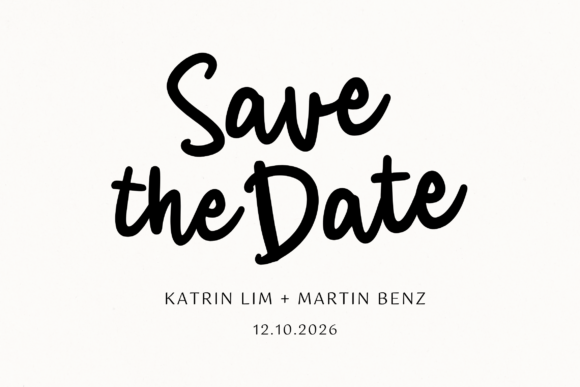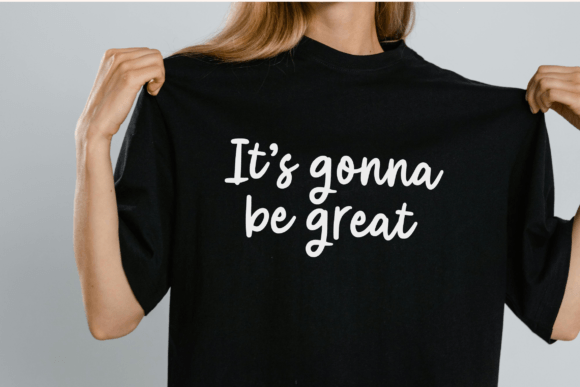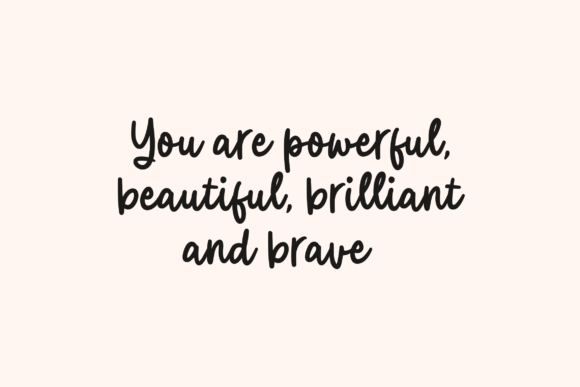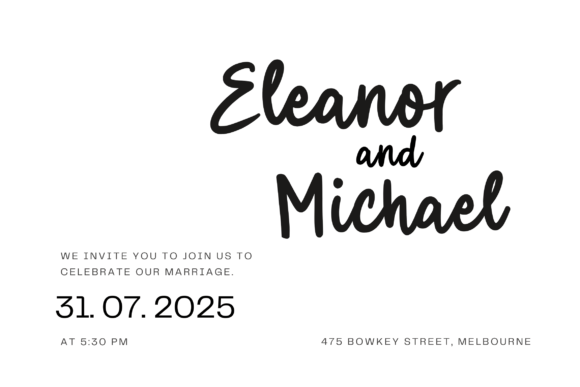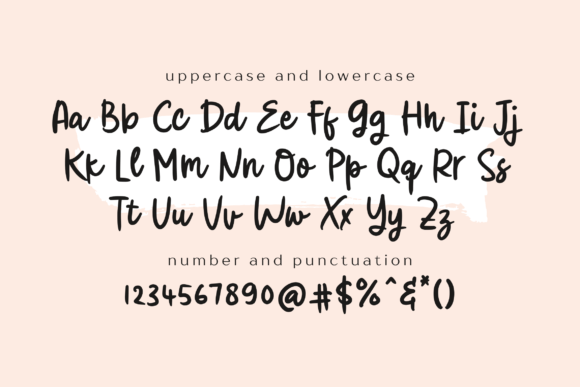
Introducing Fluffy Peach: The Ultimate Handwritten Font for Modern Design
Are you tired of using the same old fonts for your designs? Do you want to add a touch of personality and whimsy to your creations? Look no further than Fluffy Peach, a beautiful handwritten font with a modern calligraphy feel. In this article, we’ll dive into the world of Fluffy Peach and explore its features, uses, and benefits for designers and crafters.
What is Fluffy Peach?
Fluffy Peach is a unique and elegant handwritten font that combines the charm of traditional calligraphy with the playfulness of modern design. Its soft, flowing lines and delicate curves make it perfect for a wide range of applications, from stickers and greeting cards to logos, posters, and invitations.
Key Features of Fluffy Peach
- Handwritten with a modern calligraphy feel: Fluffy Peach has a distinctly human touch, with subtle imperfections and variations that give it a warm, organic feel.
- Perfect for creative projects: Whether you’re designing stickers, greeting cards, logos, posters, or invitations, Fluffy Peach is the ideal font to add a touch of elegance and sophistication.
- Highly versatile: Fluffy Peach can be used for a wide range of applications, from digital designs to print materials.
Uses for Fluffy Peach
So, what can you create with Fluffy Peach? The possibilities are endless! Here are a few ideas to get you started:
- Stickers: Add a touch of whimsy to your stickers with Fluffy Peach’s playful, cursive script.
- Greeting cards: Create beautiful, one-of-a-kind greeting cards for special occasions like birthdays, weddings, and holidays.
- Logos: Use Fluffy Peach to create a unique and memorable logo for your business or brand.
- Posters: Add a touch of elegance to your posters with Fluffy Peach’s sophisticated, modern calligraphy.
- Invitations: Create stunning invitations for weddings, parties, and other special events with Fluffy Peach.
So, why should designers and crafters choose Fluffy Peach? Here are just a few benefits:
- Add a touch of personality to your designs: Fluffy Peach’s unique, handwritten feel will help your designs stand out from the crowd.
- Increase versatility: Fluffy Peach can be used for a wide range of applications, making it a valuable addition to your design toolkit.
Tips for Using Fluffy Peach
Here are a few tips for getting the most out of Fluffy Peach:
- Experiment with different colors and textures: Fluffy Peach looks great in a variety of colors and textures, so don’t be afraid to get creative!
- Pair with other fonts: Try pairing Fluffy Peach with other fonts to create a unique and eye-catching design.
- Use for digital and print designs: Fluffy Peach is perfect for both digital and print designs, so feel free to use it across different mediums.
In conclusion, Fluffy Peach is a beautiful and versatile handwritten font that’s perfect for designers and crafters. With its modern calligraphy feel and highly versatile design, it’s ideal for a wide range of applications. Whether you’re creating stickers, greeting cards, logos, posters, or invitations, Fluffy Peach is the perfect choice. So why wait? Download Fluffy Peach today and start adding a touch of elegance and sophistication to your designs!